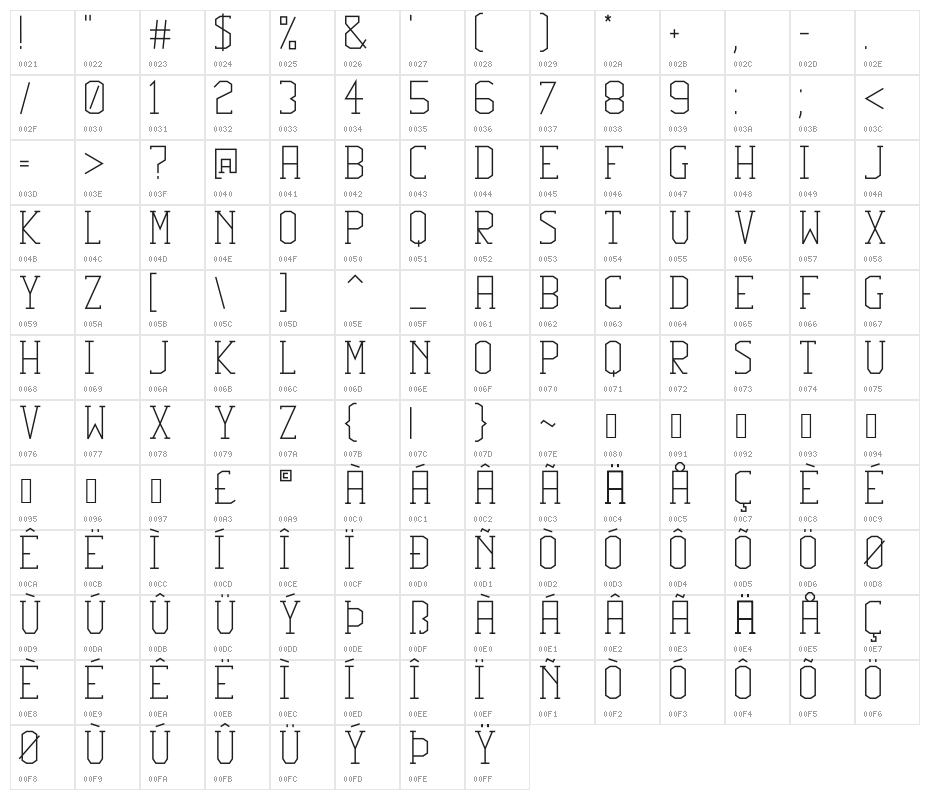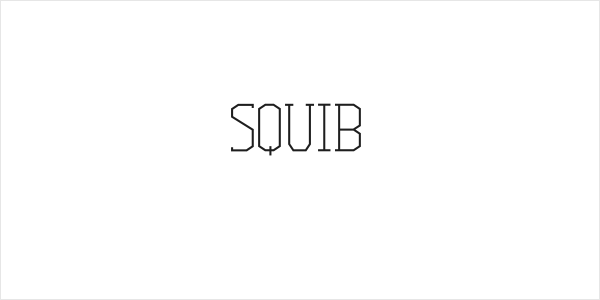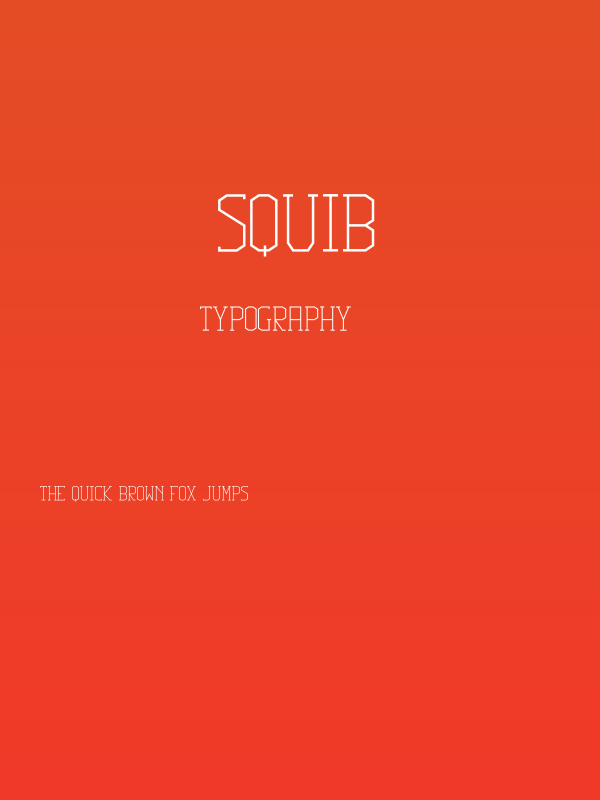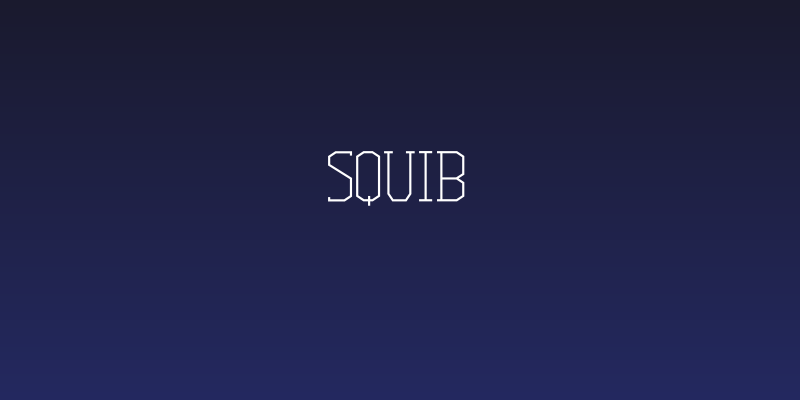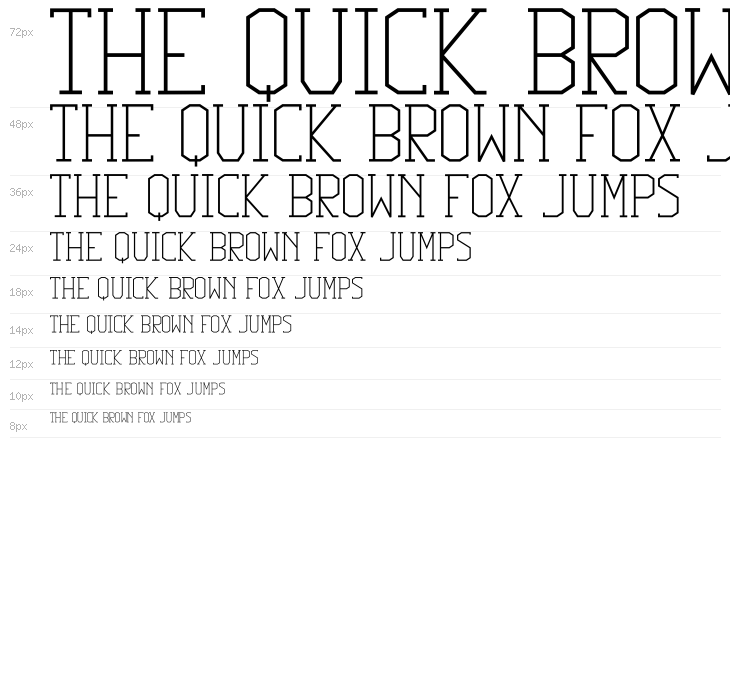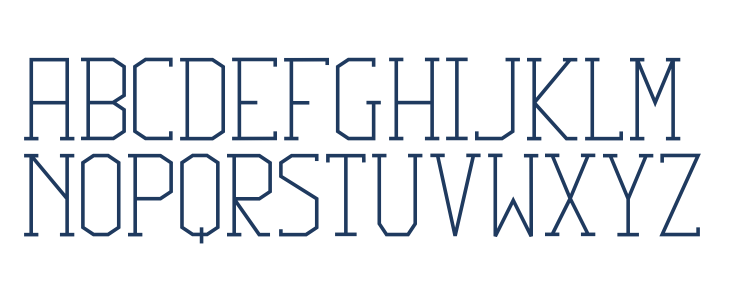
Squib Font
Squib Description
This font features a geometric and angular design, characterized by its sharp edges and clean lines. The uppercase and lowercase letters maintain a consistent height, giving it a uniform appearance. The numerals and special characters follow the same angular style, ensuring a cohesive look across all characters. The font's structure is reminiscent of digital or technical aesthetics, making it suitable for modern and futuristic themes. Its simplicity and clarity make it highly legible, even at smaller sizes.
| Use Case | Logos, Headlines, Digital interfaces |
| Proposed Projects | Ideal for tech branding, digital interfaces, video game graphics, and modern posters. |